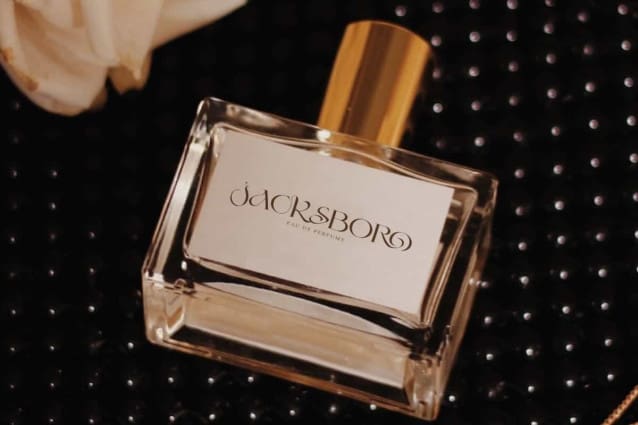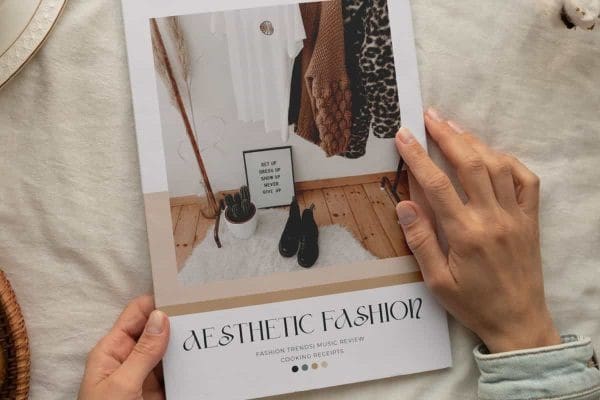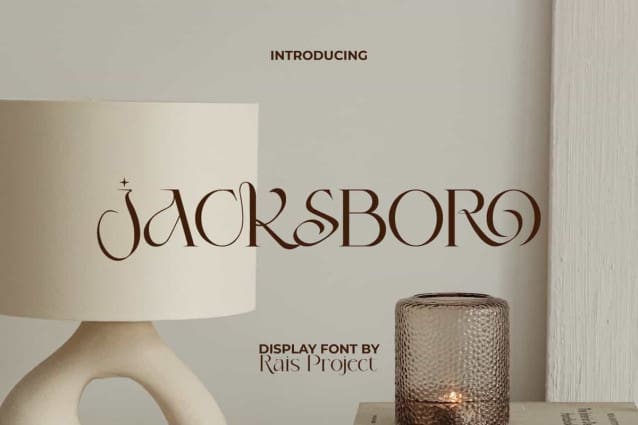
Jacksboro Font
Jacksboro Font is a stunning serif display font. This font has a luxurious and beautiful appearance with charming line variations. It will be good for any designs, such as brand image, custom design, flyer, invitation, label, magazine cover, marketing material, menu, poster, product packaging, quotes, signage, stationery, website page, and more!
Jacksboro Font including a complete set of basic Uppercase and Lowercase characters, Numerals, and large range of Punctuation. This font also include Ligature characters that will be suitable for various industries, such as accessories, advertising, beauty product, cafe, crafting, event or wedding organizer, fashion, home furniture, jewelry, marketing, movie, printing, publishing, real estate, restaurant, spa salon, etc.